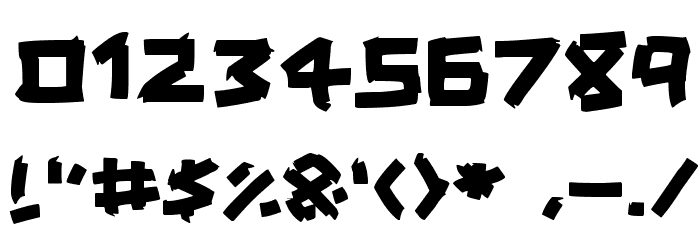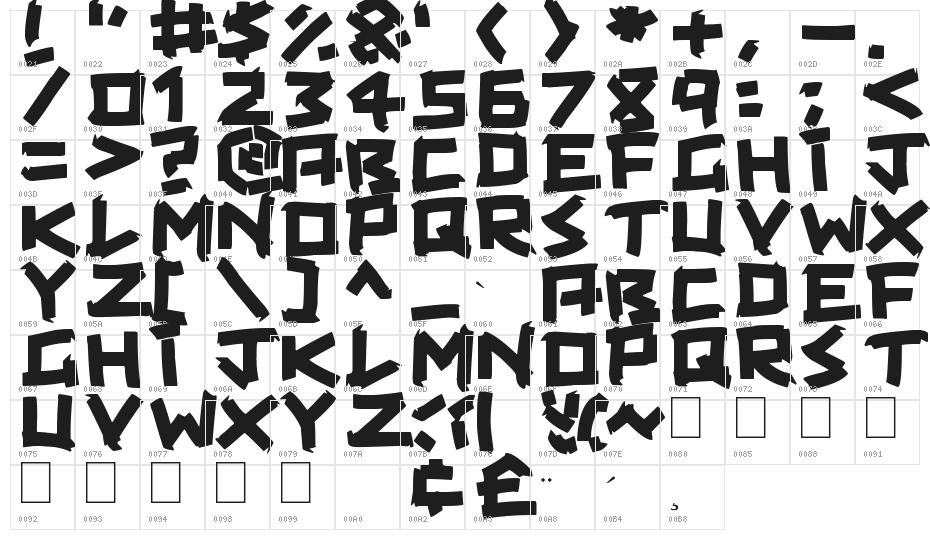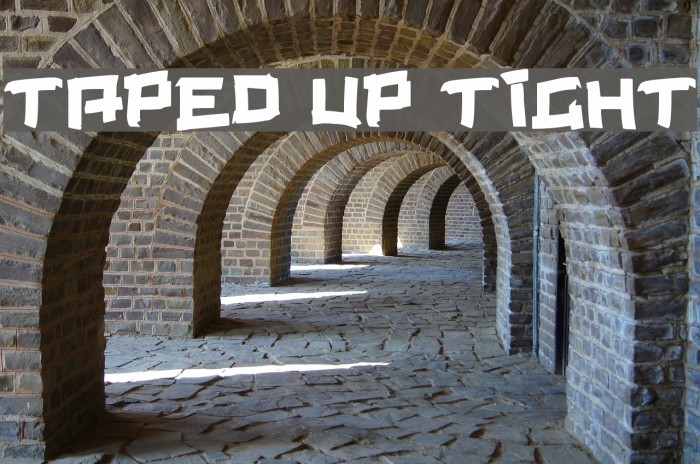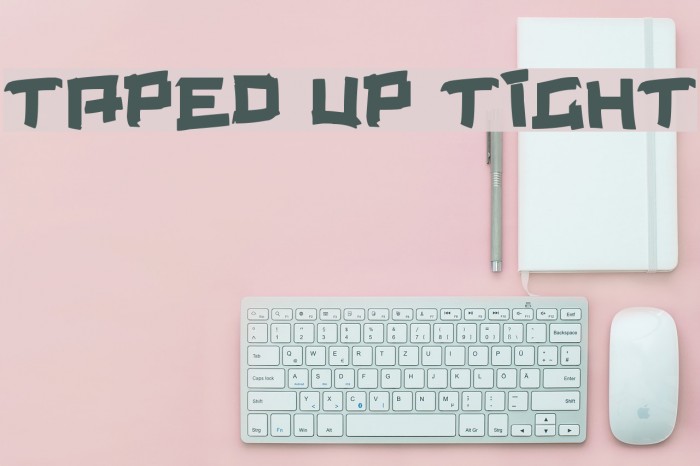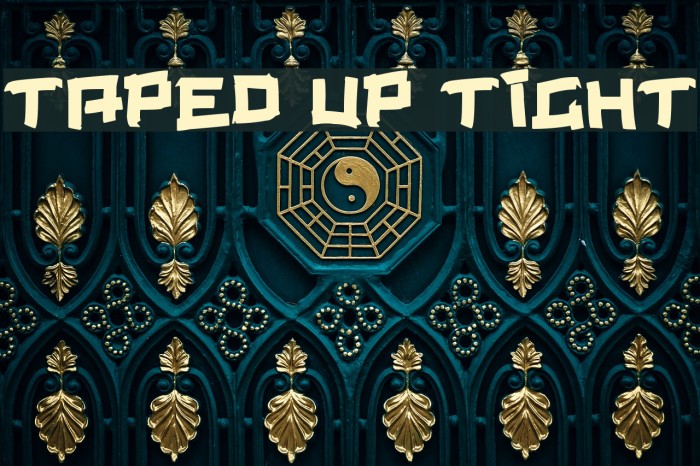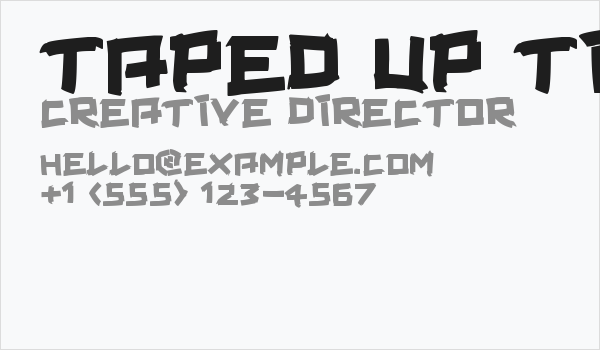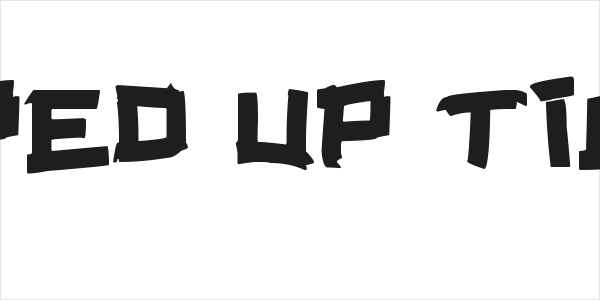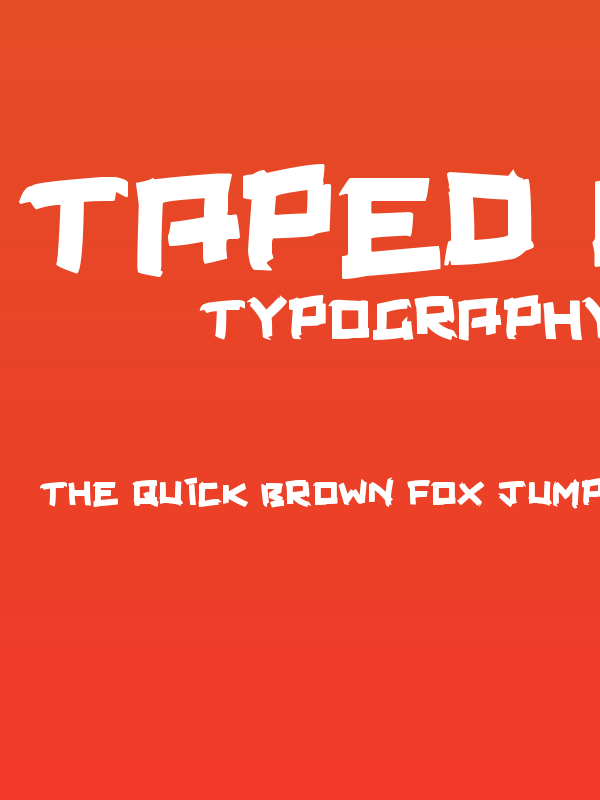
Taped Up Tight Font
Taped Up Tight Description
This font features a bold, edgy design that mimics the appearance of letters and numbers being constructed from strips of tape. The characters have a jagged, angular look with sharp edges and irregular shapes, giving them a dynamic and rebellious feel. The uppercase and lowercase letters maintain a consistent style, with each character appearing as if it has been carefully pieced together. The numerals and special characters follow the same aesthetic, ensuring a cohesive look across all glyphs. This font is ideal for projects that require a bold and unconventional appearance, making it perfect for eye-catching headlines and creative designs.
| Overall Style | Modern, Edgy |
| Proposed Projects | Ideal for street art designs, edgy posters, album covers, and urban-themed branding. |